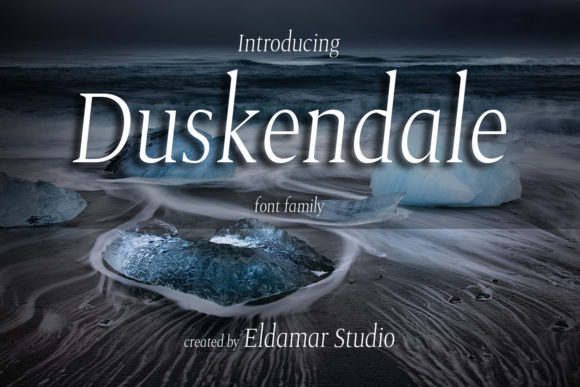
**Discover Duskendale: The Serif Font That Will Captivate Your Designs**
Prepare yourself for an unforgettable typographic adventure with Duskendale, our exquisite serif font. Finely crafted with minimalist elegance, Duskendale's graceful curves and understated charm will elevate any design project to new heights.
Immerse yourself in a world of versatility, where Duskendale seamlessly adapts to your every creative whim. Whether you're crafting captivating headlines, designing eye-catching logos, or weaving enchanting web pages, Duskendale's enchanting presence will leave an indelible mark on your audience.
Embrace the allure of Duskendale's compact form, meticulously designed to shine in small displays. Its captivating presence will draw attention to your words, ensuring your messages resonate with maximum impact.
Elevate your designs to the realm of the extraordinary with Duskendale. Its timeless beauty and undeniable allure will transform your creative visions into captivating masterpieces that leave a lasting impression.